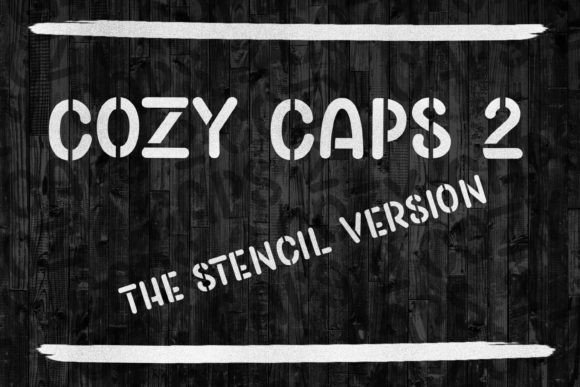
Introducing Cozy Caps 2 Font: The Ultimate Stencil Companion for Designers and Crafters
Are you a designer or crafter looking for the perfect font to add a personal touch to your stencil projects? Look no further than Cozy Caps 2 Font, a bold and versatile handwritten print font that’s specifically designed for stenciling. In this article, we’ll dive into the features and benefits of Cozy Caps 2, and explore how it can elevate your creative projects.
What is Cozy Caps 2 Font?
Cozy Caps 2 Font is a bolder version of the popular Cozy Caps font, with all open counters and no closed shapes. This unique design feature makes it perfect for stenciling, as it allows for crisp and clear lines that won’t get lost in the cutting process. The font consists of capital letters A-Z, numbers 0-9, punctuation, and some accented characters, making it a comprehensive and practical choice for a wide range of projects.
Key Features of Cozy Caps 2 Font
- Bold and Versatile: Cozy Caps 2 is a bold font that’s perfect for making a statement. Its versatility makes it suitable for a wide range of projects, from wood signs and doormats to reverse canvases and more.
- Open Counters: The font’s open counters ensure that the design remains clear and crisp, even when stenciled onto intricate surfaces.
- Comprehensive Character Set: Cozy Caps 2 includes a comprehensive character set, including capital letters A-Z, numbers 0-9, punctuation, and some accented characters.
- Handwritten and Print-Friendly: The font’s handwritten style gives it a personal touch, while its print-friendly design ensures that it looks great on a variety of surfaces.
Perfect for Stencil Projects
Cozy Caps 2 Font is specifically designed for stenciling, making it the perfect choice for crafters and designers who work with stencils. Its bold design and open counters ensure that the font remains clear and legible, even when stenciled onto complex surfaces. Some popular projects that Cozy Caps 2 is well-suited for include:
- Wood Signs: Add a personal touch to your wooden signs with Cozy Caps 2. Its bold design and clear lines make it perfect for creating eye-catching signs.
- Doormats: Cozy Caps 2 is a great choice for doormats, as its bold design and open counters ensure that the text remains clear and legible.
- Reverse Canvases: Add a touch of elegance to your reverse canvases with Cozy Caps 2. Its handwritten style and print-friendly design make it perfect for creating beautiful and intricate designs.
Tips for Using Cozy Caps 2 Font
- Experiment with Different Sizes: Cozy Caps 2 looks great in a variety of sizes, from small and delicate to large and bold. Experiment with different sizes to find the one that works best for your project.
- Pair with Other Fonts: Cozy Caps 2 pairs well with a variety of other fonts. Try pairing it with a script font or a sans-serif font to create a unique and interesting design.
- Use it for Titles and Headings: Cozy Caps 2 is perfect for titles and headings, as its bold design and clear lines make it easy to read.
Cozy Caps 2 Font is a versatile and practical choice for designers and crafters who work with stencils. Its bold design, open counters, and comprehensive character set make it perfect for a wide range of projects, from wood signs and doormats to reverse canvases and more. Whether you’re a seasoned designer or a crafter just starting out, Cozy Caps 2 is a great addition to your font library.